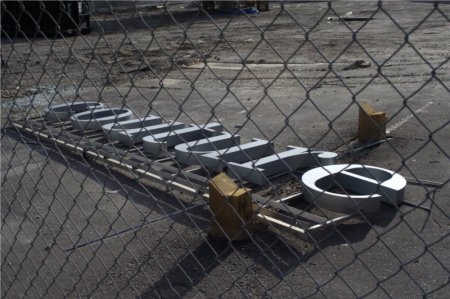
couture
It’s not often that you encounter the word “couture” abandoned in an empty lot. It’s kind of like discovering a beaded dress glittering in the gutter.
This is the name of a new condo that will be built on the site. The sales centre was recently taken down and I expect construction will begin soon.
For now, there’s just a bunch of prostrate letters here, a sales pitch tossed aside, a scrap of glamour seeming to be garbage.